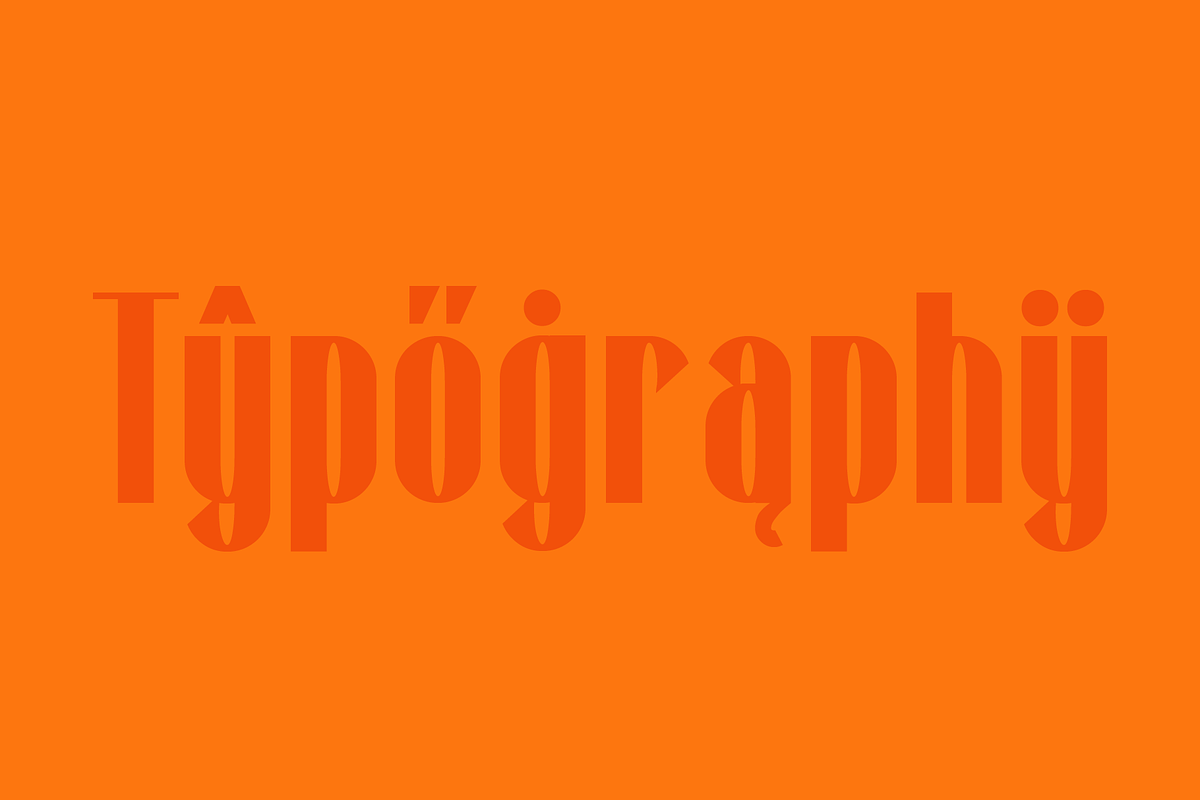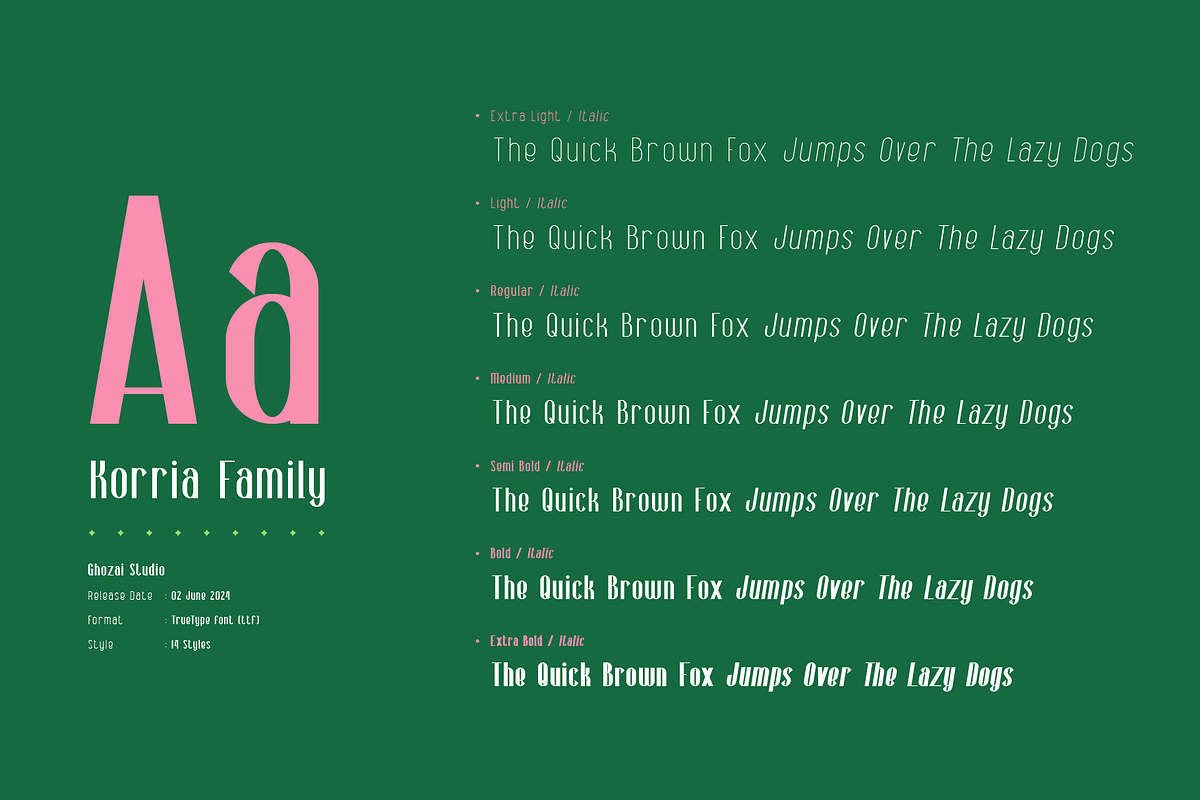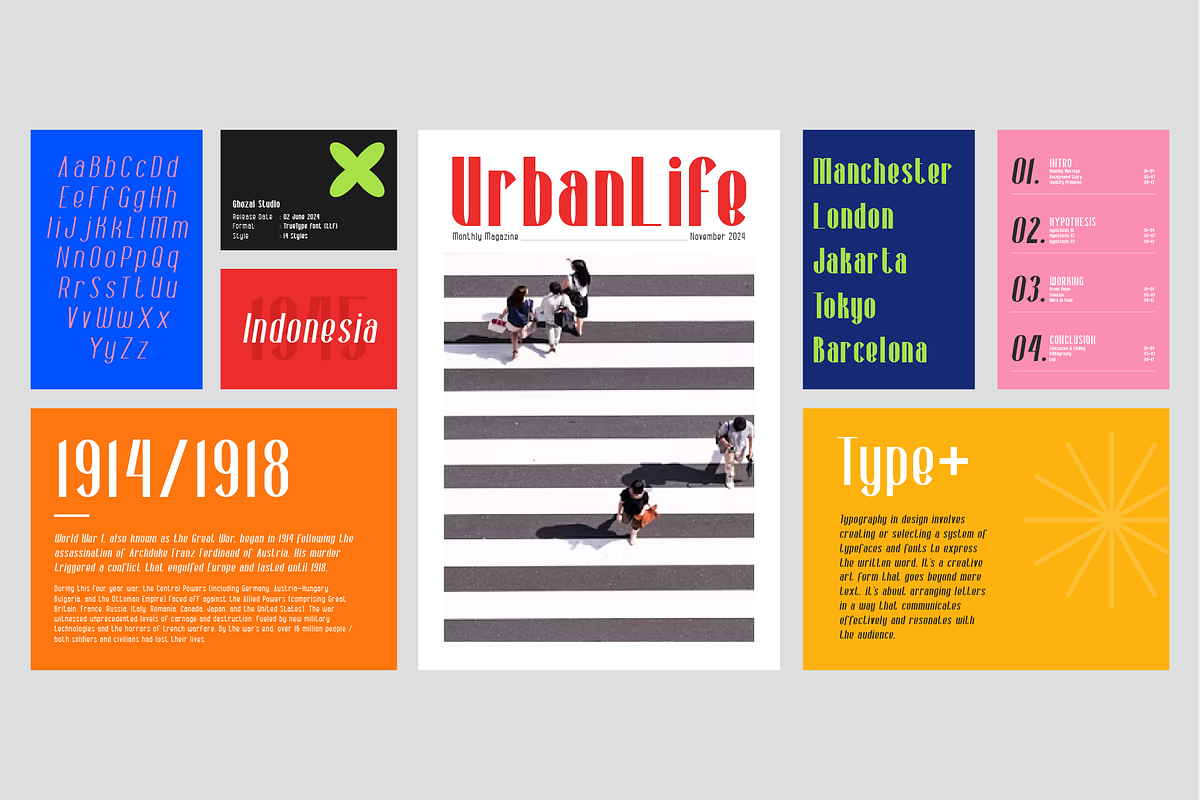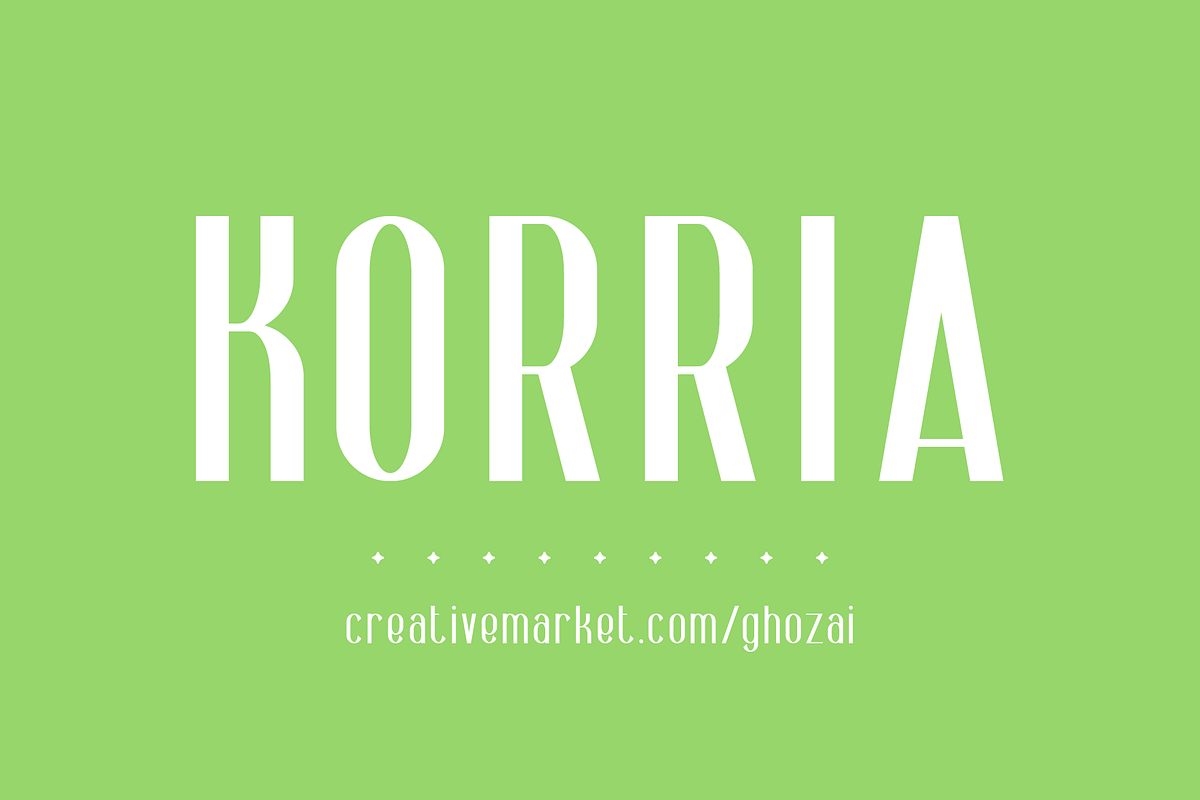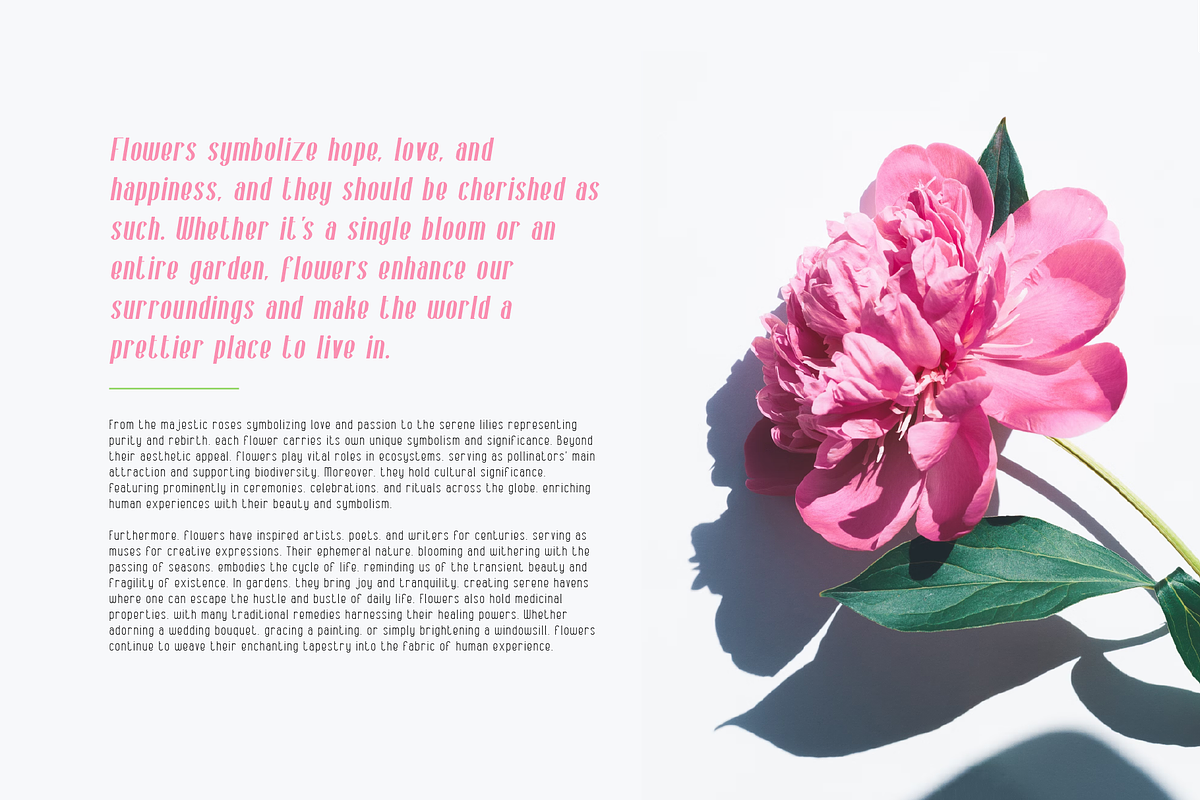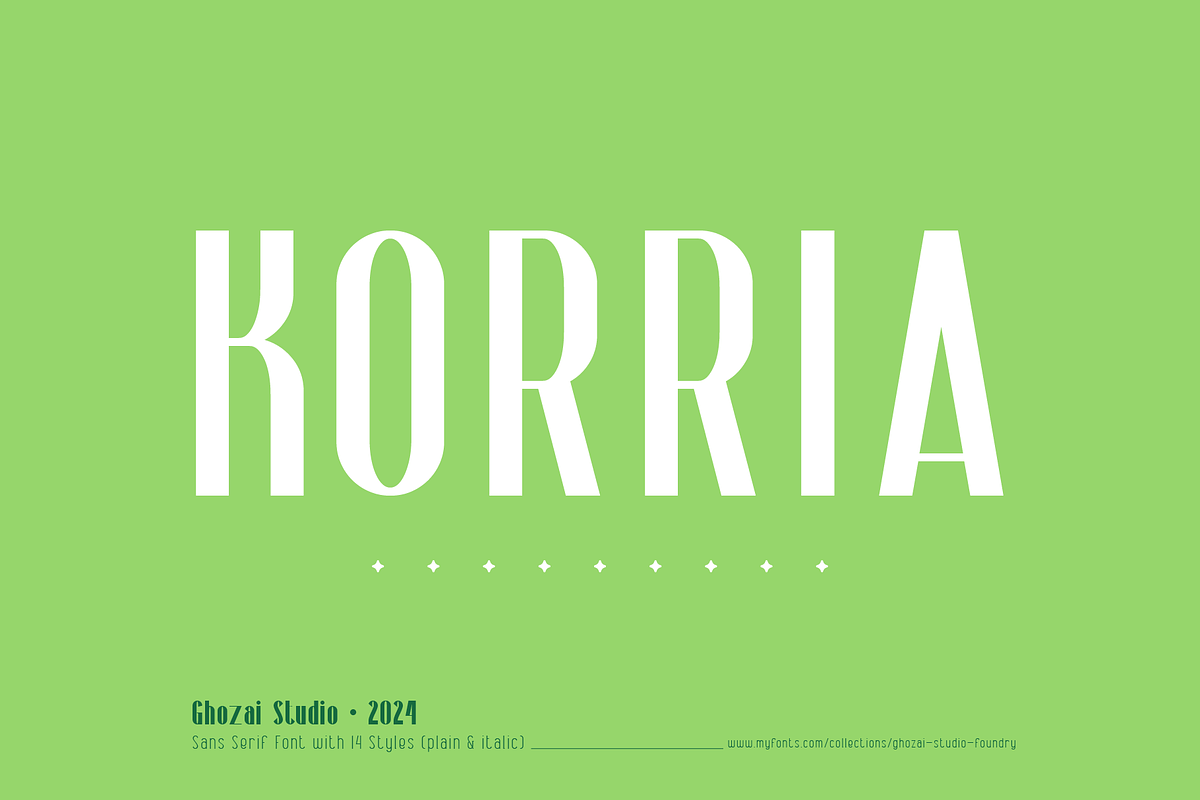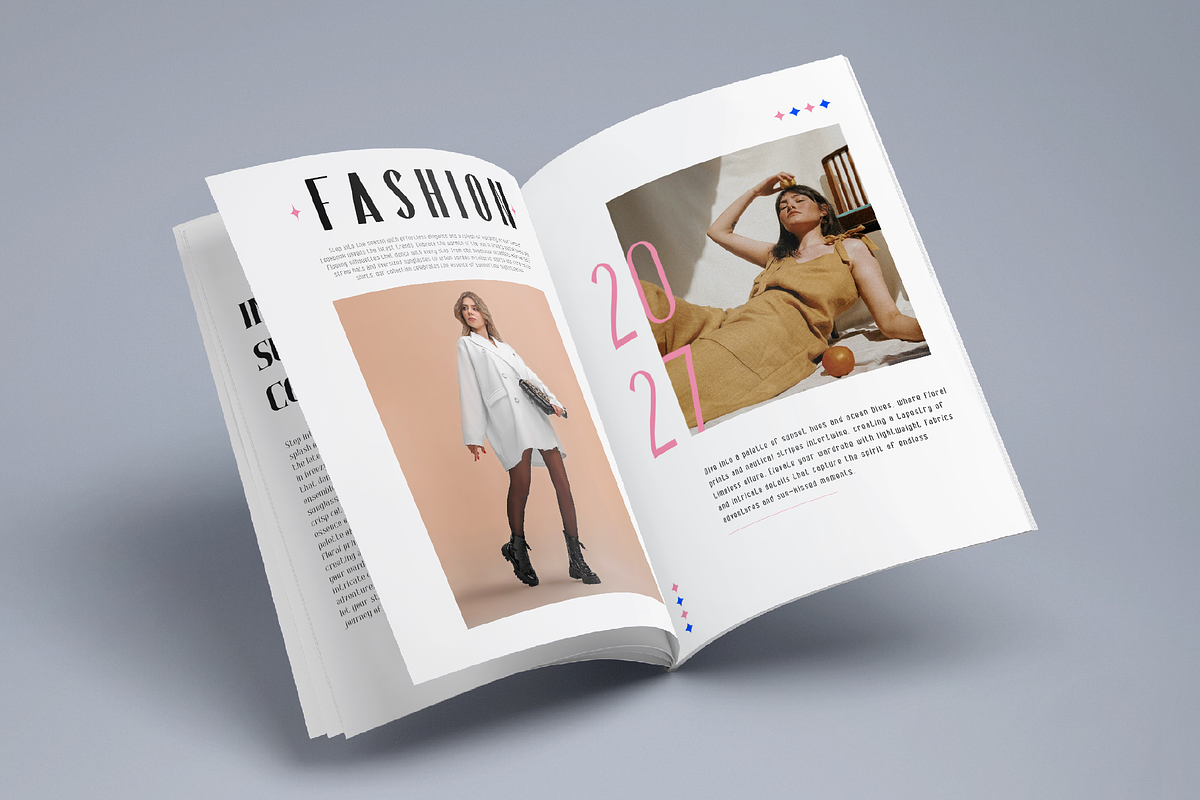
Korria - Sans
Korria is a sans serif font that comes with 14 styles (7 plain and 7 matching italic styles). Combining a straight line and a rounded shape. With a wide range of styles, Korria is suitable for any design project such as editorial, branding, print, UI / UX applications, or any digital product.